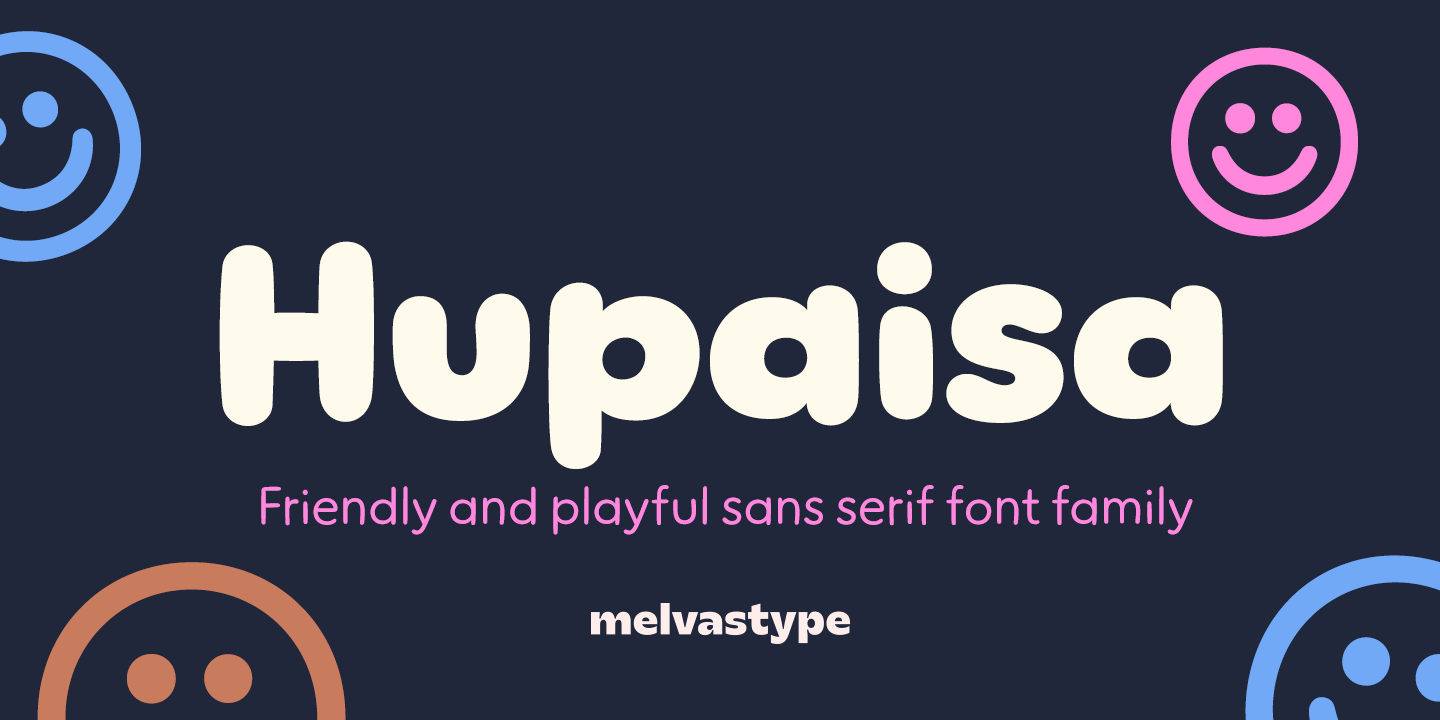
Hupaisa Font is perfect for playful projects including children's book illustrations, fun brand identities, casual gaming graphics, youth-oriented marketing campaigns, creative workshop materials, friendly app interfaces, whimsical poster designs, and cheerful educational resources. This delightful typeface brings joyful personality and approachable charm to any design project.
What makes Hupaisa Font exciting is its wonderful ability to convey happiness and friendliness through bouncy letterforms that seem to dance with life and energy. The cheerful character design features playful curves and uplifting proportions that instantly create a positive atmosphere while maintaining excellent readability for both children and adults. This font delivers the perfect combination of fun and functionality that makes communications feel warm and inviting.
The Hupaisa Font family typically includes regular and bold weights with playful styling, complete uppercase and lowercase alphabets, numerals, punctuation, and fun symbols. The design incorporates bouncy characteristics and cheerful elements that enhance the joyful aesthetic. Some versions may include decorative alternates, playful ligatures, and additional whimsical characters perfect for children's and entertainment applications.
Whether you're designing for family brands, educational services, or entertainment companies, Hupaisa Font Free Download delivers the genuine happiness that creates memorable connections with audiences of all ages. Its joyful presence makes it ideal for friendly logos and communications that need to convey warmth and accessibility. The font's playful heritage ensures it communicates positivity and approachability, making it perfect for any project requiring the delightful aesthetic of genuine happiness and friendly charm.